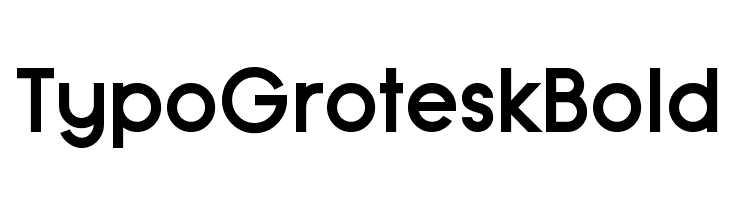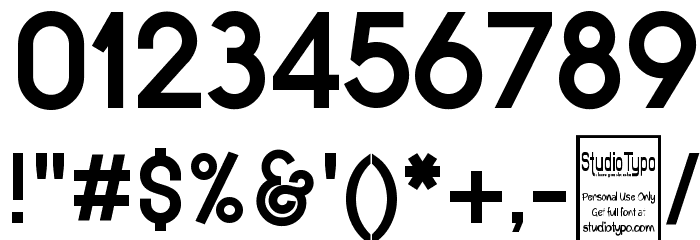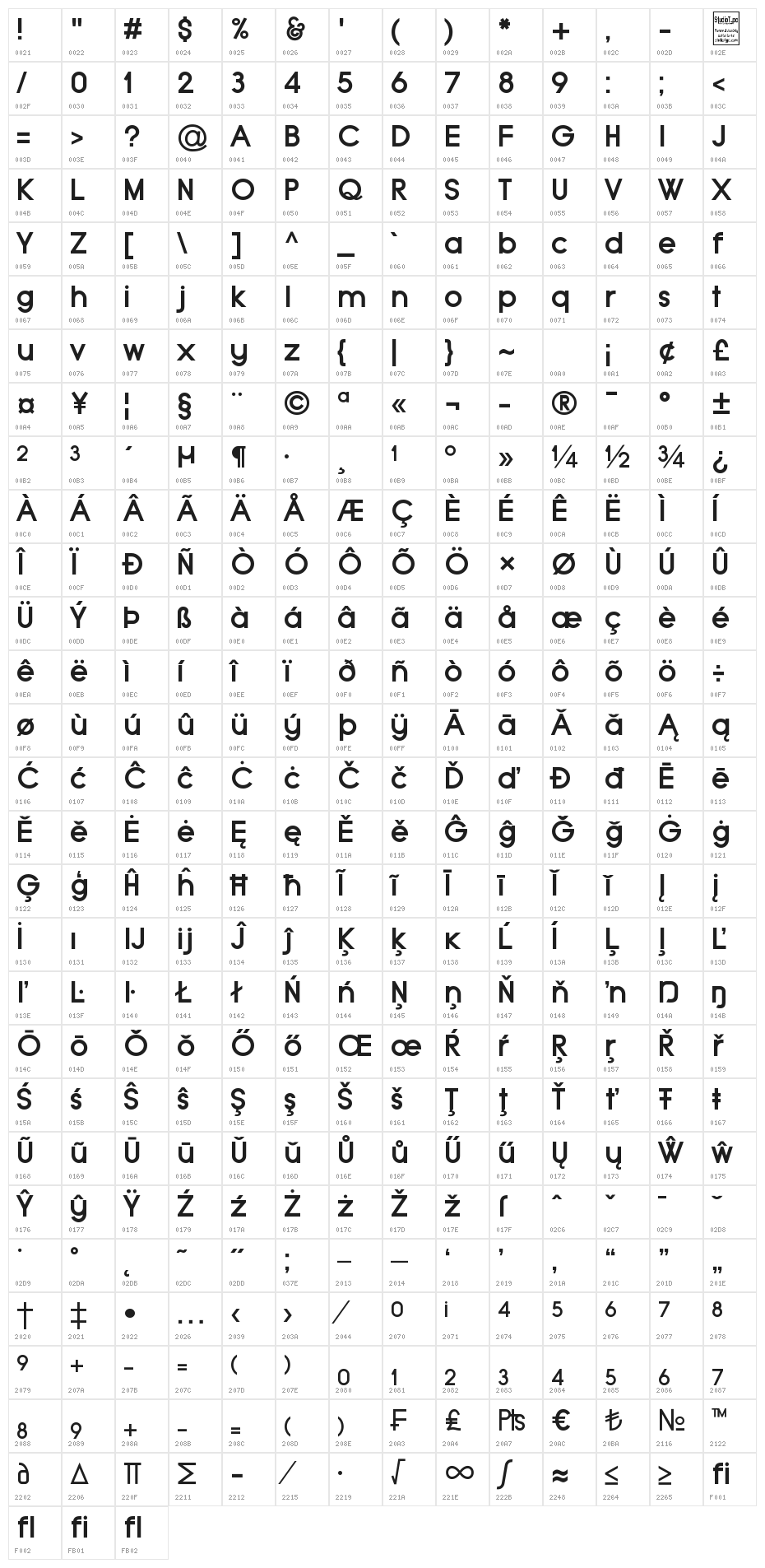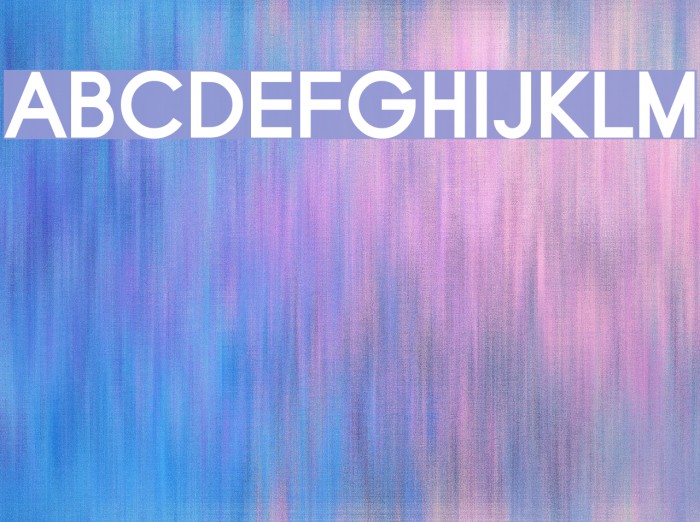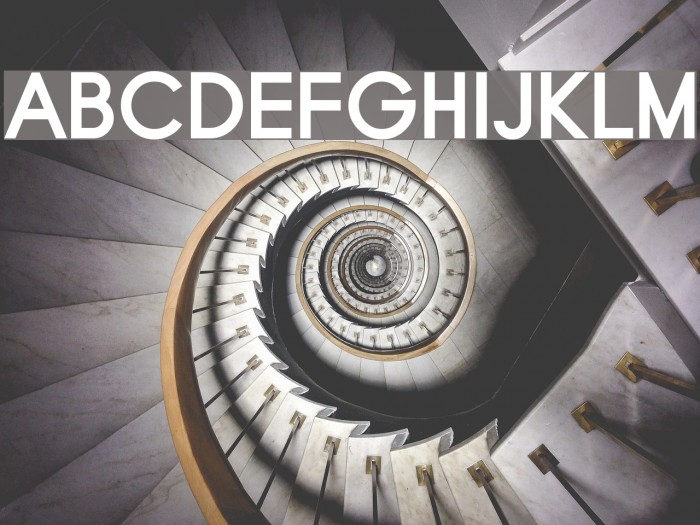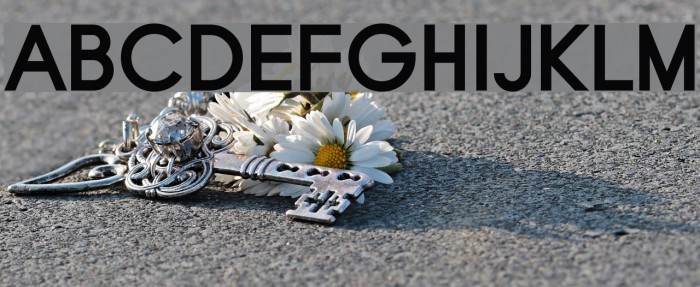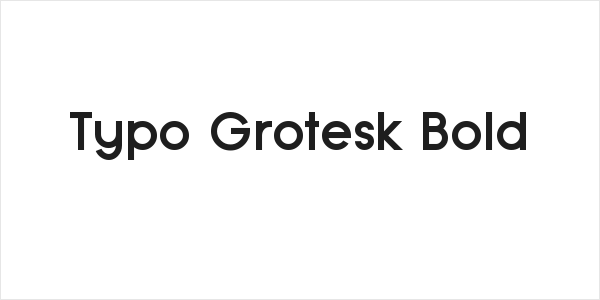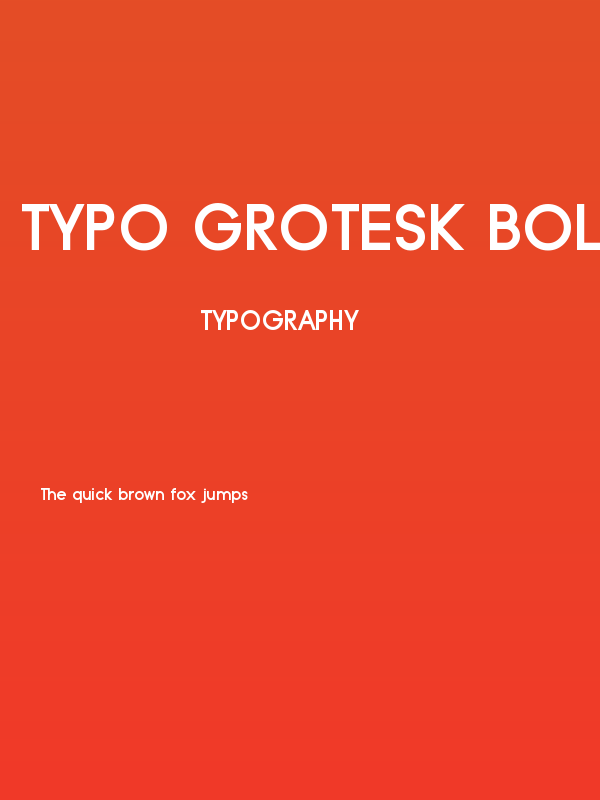
Typo Grotesk Bold Font
Typo Grotesk Bold Description
This font features a bold, clean, and modern design with a strong geometric structure. The characters are evenly weighted, providing a uniform appearance that enhances readability. The uppercase and lowercase letters are well-proportioned, with a consistent stroke width that gives the font a balanced look. The numerals are clear and distinct, making them easily distinguishable. Special characters are included, maintaining the font's cohesive style. This typeface is versatile, suitable for various design applications that require a bold and impactful presence.
| Proposed Projects | Ideal for branding, headlines, posters, and digital media where a strong visual impact is needed. |